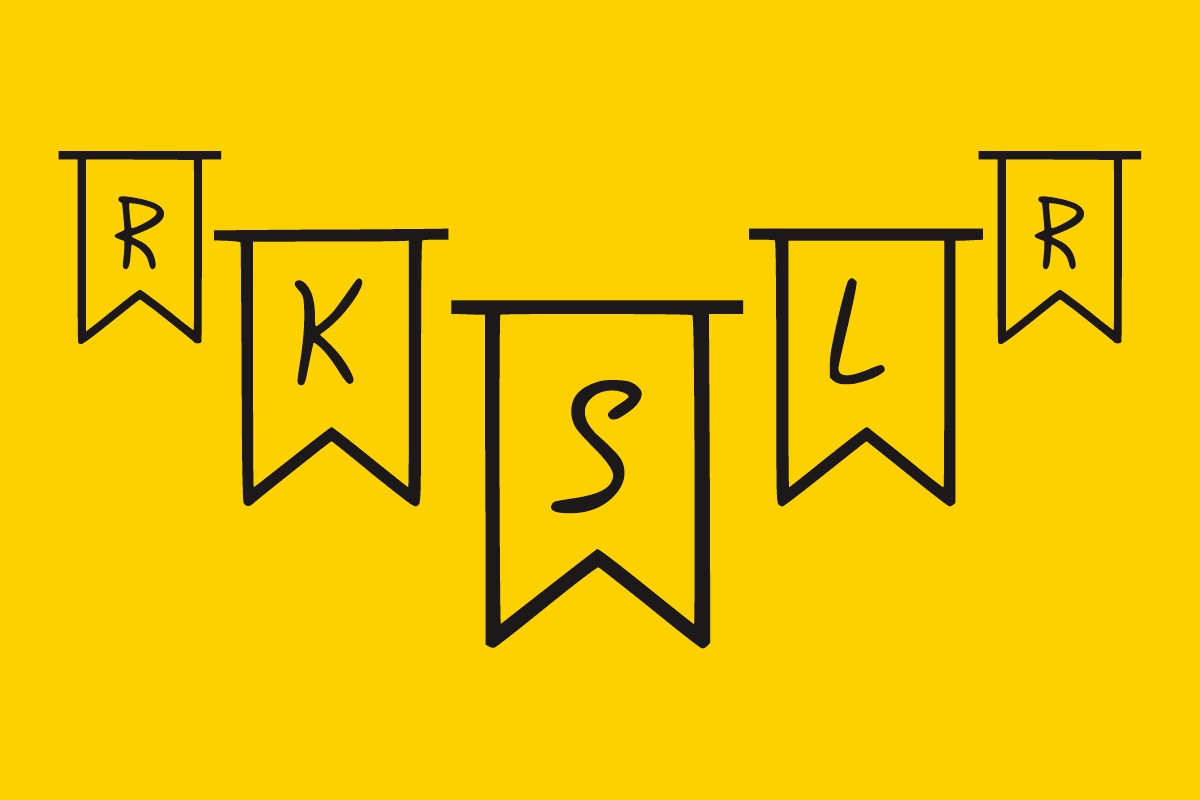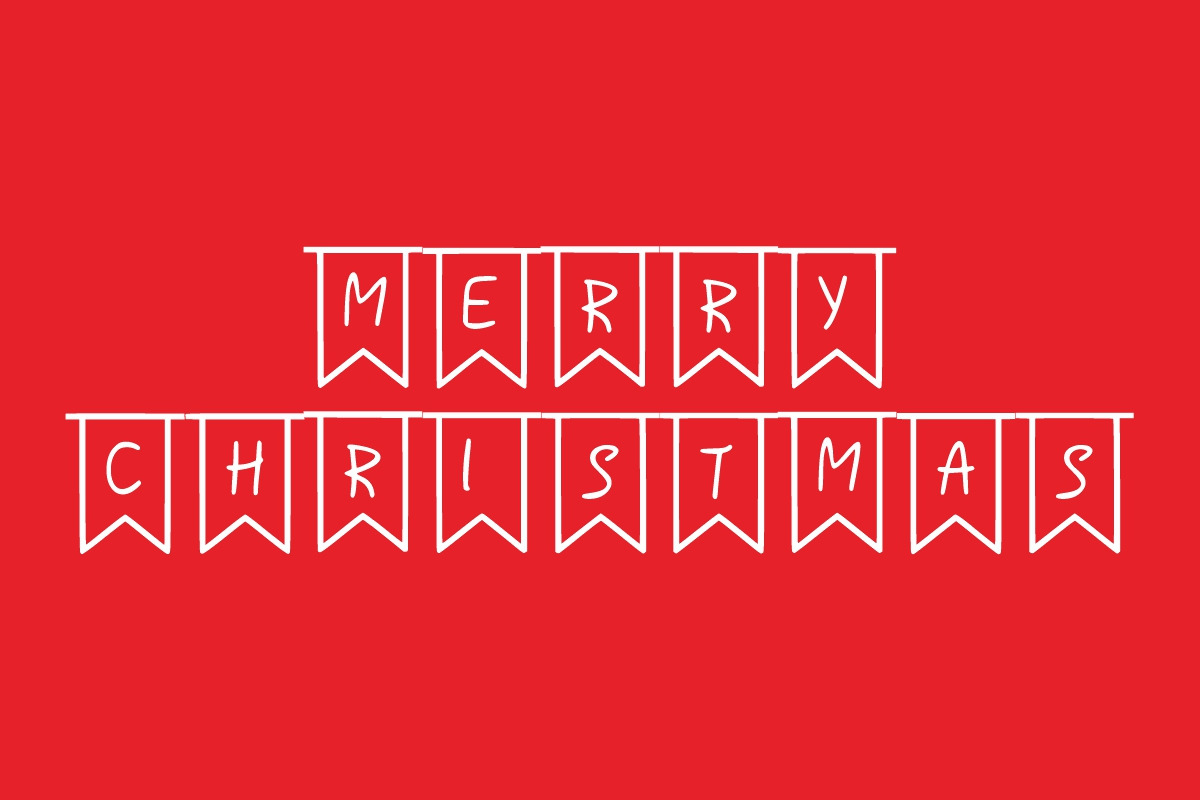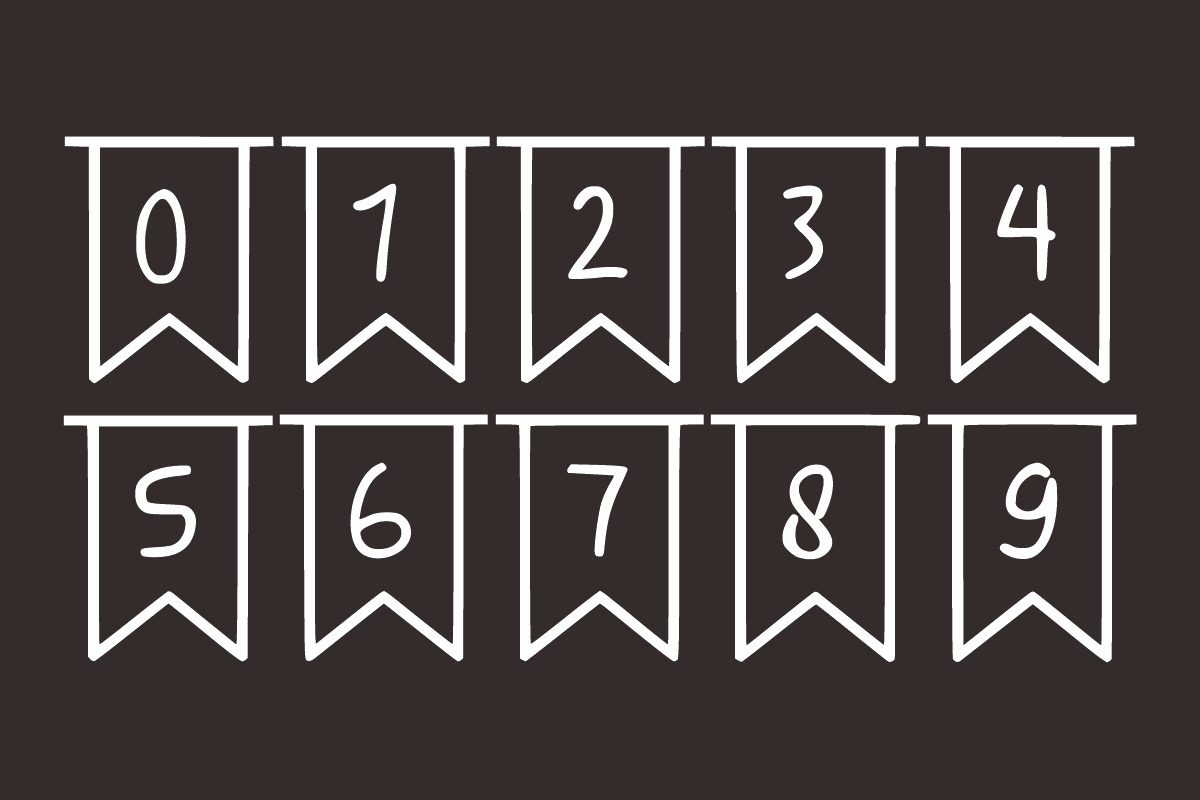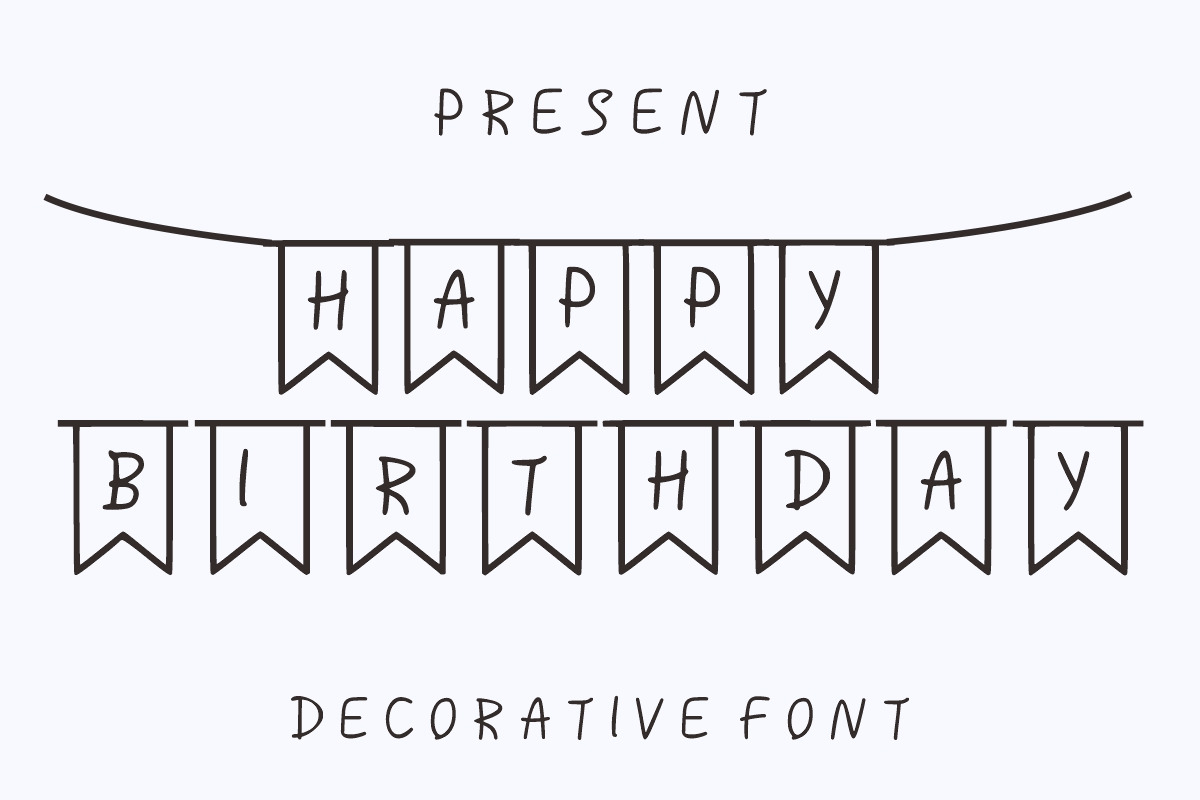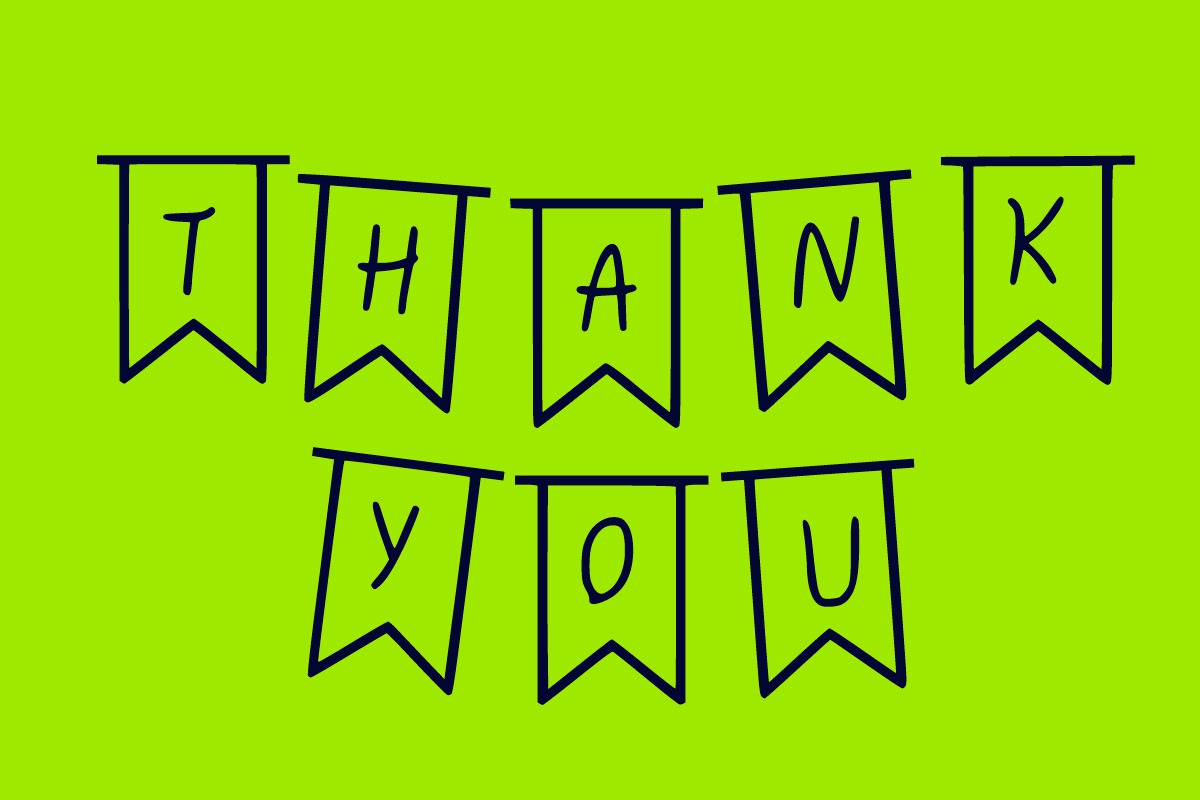
Happy Banner
Happy Banner is a cool and fun display font with a framed banner for each letter. Add it to each of your promotion materials, price tags, party invitation, banners, gatherings, or pretty much any design that requires a touch of youth and joy.